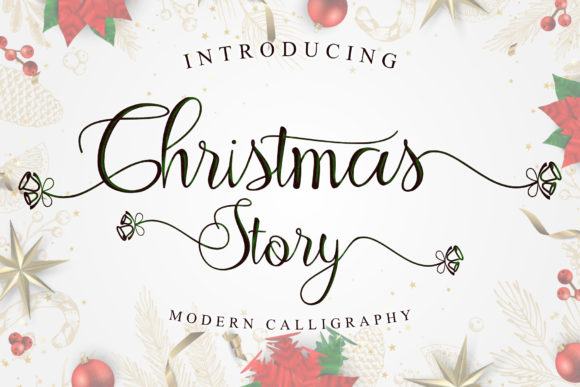
Christmas Story Font: A Romantic and Festive Handwritten Font for Your Holiday Designs
The holiday season is upon us, and with it comes the need for festive and fun designs that capture the spirit of Christmas. One of the most important elements of any design is the font, and that’s where Christmas Story Font comes in. This romantic and festive handwritten font is perfect for adding a touch of holiday cheer to your designs. In this article, we’ll take a closer look at Christmas Story Font, its features, and how you can use it to create stunning holiday designs.
What Makes Christmas Story Font Special?
Christmas Story Font is a unique and natural-looking handwritten font that is incredibly versatile. Its organic style makes it perfect for a wide range of designs, from holiday cards and invitations to festive posters and social media graphics. The font is PUA encoded, which means you can access all of the glyphs and swashes with ease, giving you even more creative freedom.
One of the standout features of Christmas Story Font is its romantic and festive feel. The font has a whimsical, handwritten quality that evokes the magic and wonder of the holiday season. Whether you’re creating designs for personal use or for clients, Christmas Story Font is sure to add a touch of holiday cheer to your work.
How to Use Christmas Story Font in Your Designs
Christmas Story Font is incredibly versatile and can be used in a wide range of designs. Here are just a few ideas to get you started:
- Holiday cards and invitations: Add a personal touch to your holiday cards and invitations with Christmas Story Font.
- Festive posters and flyers: Create eye-catching posters and flyers for holiday events and promotions.
- Social media graphics: Add a touch of holiday cheer to your social media graphics and posts.
- Website headers and banners: Use Christmas Story Font to create festive website headers and banners.
The possibilities are endless, and with Christmas Story Font, you can create stunning holiday designs that will leave a lasting impression on your audience.
The Benefits of Using Christmas Story Font
There are many benefits to using Christmas Story Font in your holiday designs. Here are just a few:
- Unique and eye-catching: Christmas Story Font is a unique and eye-catching font that will set your designs apart from the crowd.
- Easy to use: The font is PUA encoded, making it easy to access all of the glyphs and swashes.
- Versatile: Christmas Story Font can be used in a wide range of designs, from holiday cards to festive posters.
- Festive and fun: The font has a festive and fun feel that’s perfect for the holiday season.
By using Christmas Story Font in your holiday designs, you can create stunning and effective designs that will leave a lasting impression on your audience.
Tips and Tricks for Using Christmas Story Font
Here are a few tips and tricks for using Christmas Story Font in your holiday designs:
- Experiment with different colors: Christmas Story Font looks great in a variety of colors, so don’t be afraid to experiment and find the perfect color scheme for your design.
- Use it with other fonts: Christmas Story Font pairs well with other fonts, so try using it with a bold font for headings and a clean font for body text.
- Play with swashes: The font comes with a range of swashes and glyphs, so don’t be afraid to get creative and add some extra flair to your design.
By following these tips and tricks, you can create stunning holiday designs that showcase Christmas Story Font in all its glory.
Christmas Story Font is a romantic and festive handwritten font that’s perfect for adding a touch of holiday cheer to your designs. With its unique and natural style, PUA encoding, and versatility, it’s the perfect font for holiday cards, invitations, posters, and more. By following the tips and tricks outlined in this article, you can create stunning holiday designs that will leave a lasting impression on your audience.